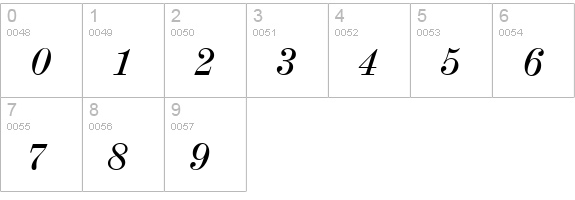
Madeira-Italic Font Details
Madeira-Italic is a distinctive, italic variant in the Madeira typeface family \xE2\x80\x94 well suited to design and typography projects.
Madeira-Italic font is a graceful and elegant typeface that exudes sophistication and charm. Its slanted letterforms convey a sense of movement and fluidity, adding a touch of dynamism to any design project. The delicate curves and subtle serifs of Madeira-Italic create a timeless and classic look that is perfect for adding a touch of style to your work. What's even better is that Madeira-Italic is available for free download at FontsMarket.com. This means you can easily access this exquisite font and elevate your designs without any cost. Whether you're working on a branding project, editorial design, or any other creative endeavor, Madeira-Italic is sure to bring a touch of class and elegance to your work. Don't miss out on this fantastic opportunity to enhance your designs with the beauty of Madeira-Italic font, available for free at FontsMarket.com.